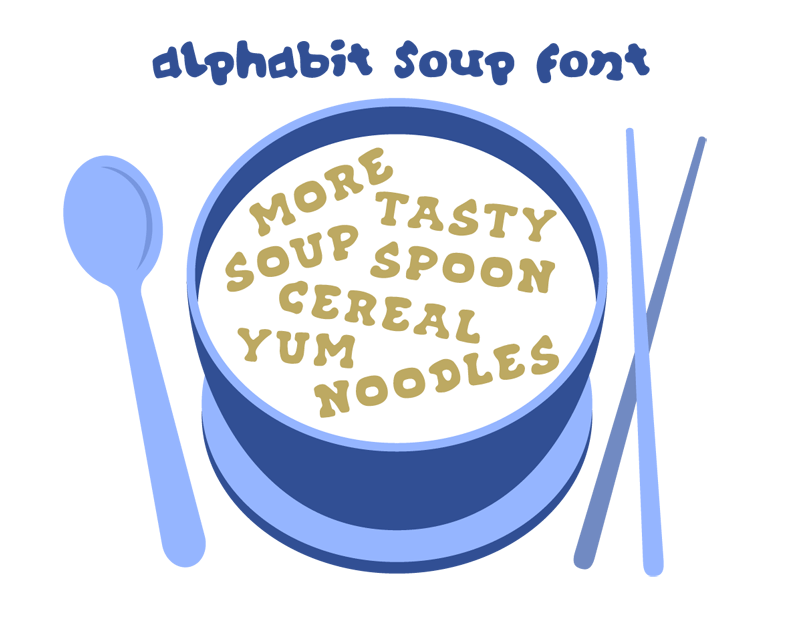
Font name: | Alphabit Soup |
Author: | Ben Dunkle |
Note by Ben Dunkle | |
These letters remind me of the cereal bits and noodles in food I ate when I was I kid. I guess they were trying to teach kids how to read. Free to use on anything. |